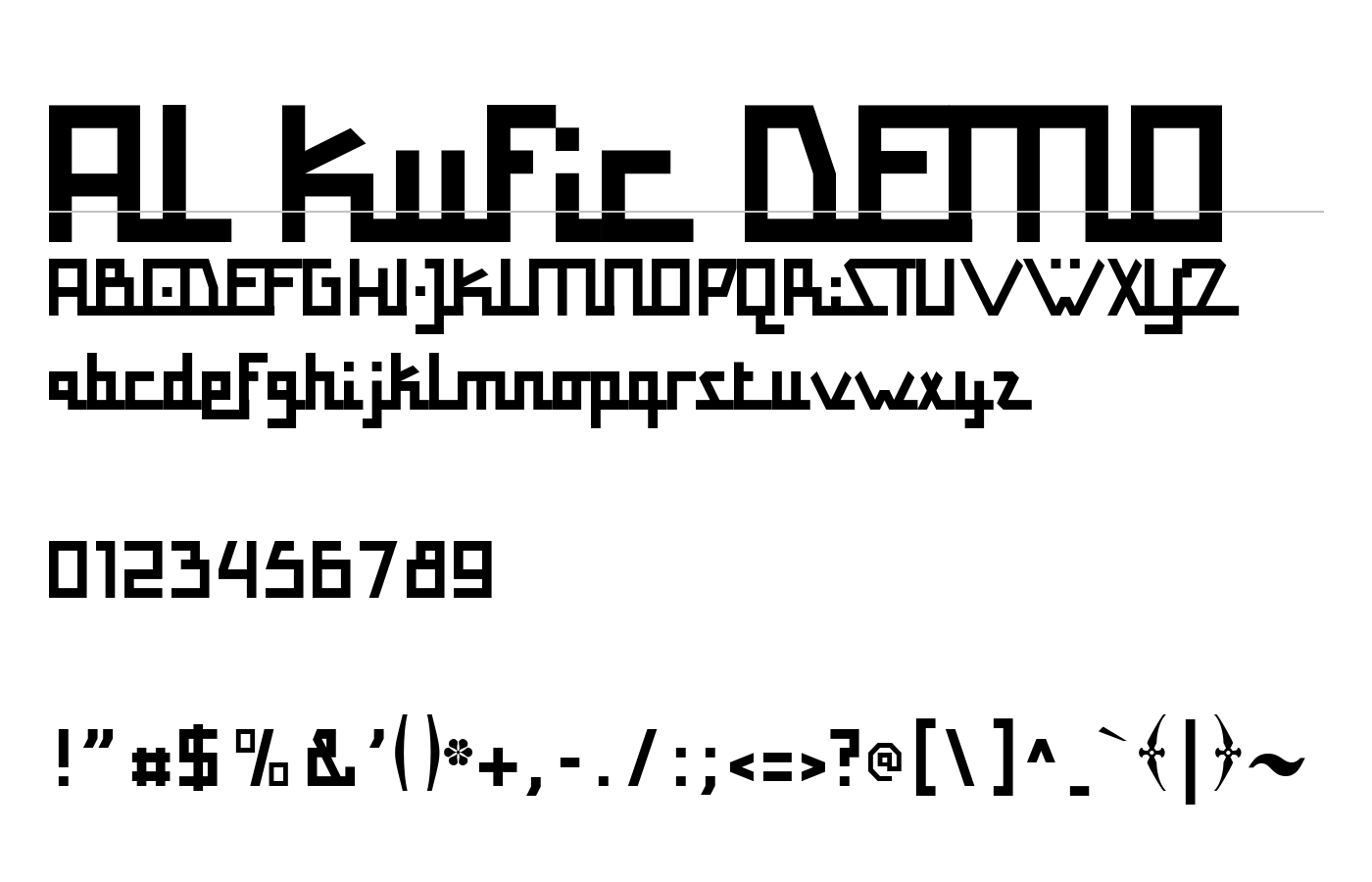
Al Kufic DEMO is a bold, geometric sans serif font inspired by the angular and structured style of traditional Kufic calligraphy. Its sharp edges, square forms, and high contrast between thick and thin strokes give it a modern yet historic feel, making it ideal for striking headlines, logos, and branding that seek a unique, artistic, or cultural touch. This font works especially well in creative projects where a strong, architectural appearance is desired, balancing rigidity with stylized flair.
Al Kufic DEMO Font
About Al Kufic DEMO Font